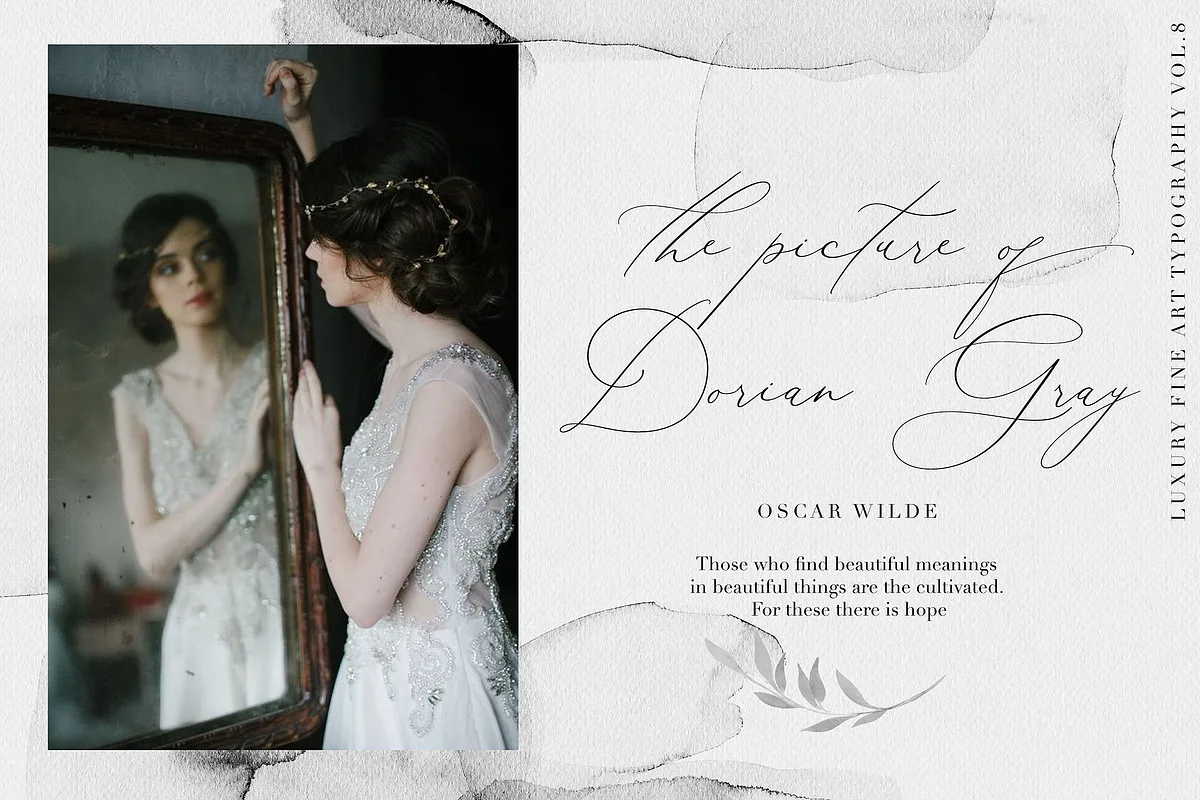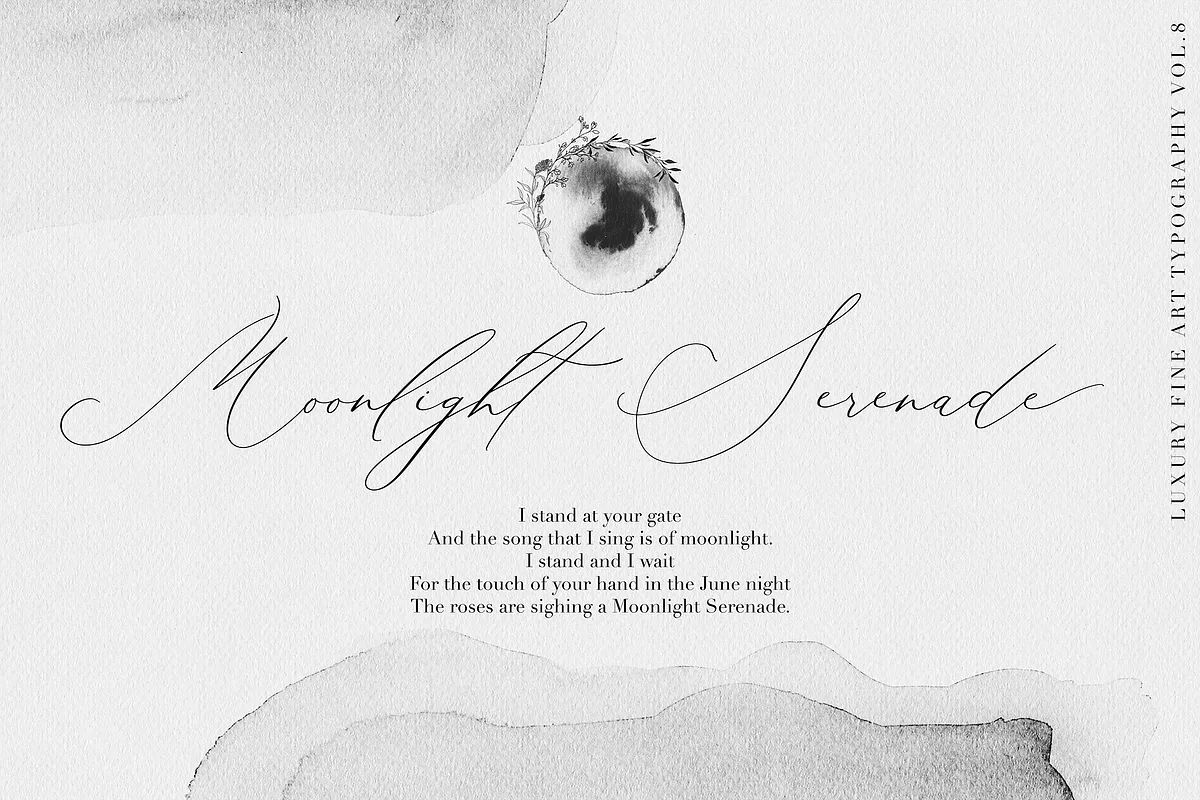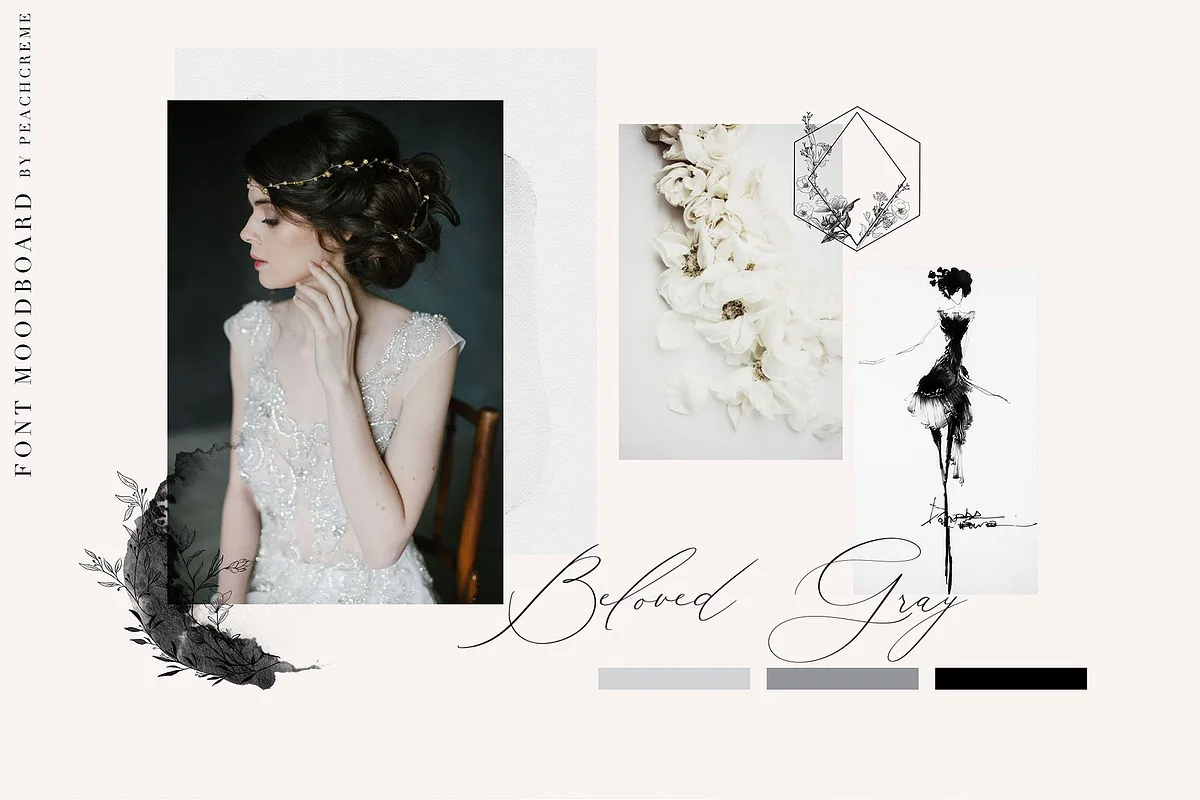
Beloved Gray Font
“Beloved Gray” is a crème de la crème modern calligraphy font with classic, sophisticated accents. It is perfect for branding, wedding invites and cards.
“Beloved Gray” includes full set of lovely uppercase and lowercase letters, multilingual symbols, numerals, punctuation and ligatures. All lowercase letters include beautiful and unique (each letter has own “unpatterned” ending) beginning and ending swashes. Also, includes following multilingual symbols.